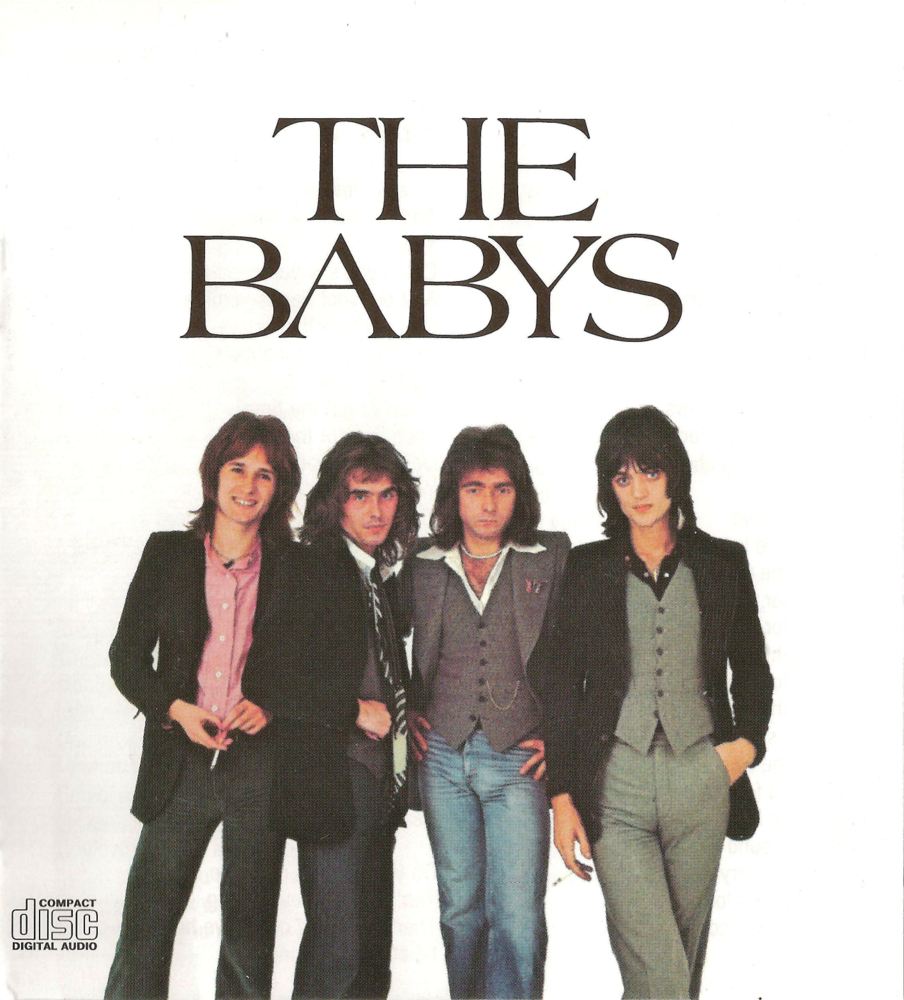
The Babys Font
Fonts in UseThe Babys were a British rock band that formed in 1975 and released their self-titled debut album in 1976 featuring a mix of rock and pop songs, including the hit single "Isn't It Time".
The album cover displays the use of the Americana font, a flared serif typeface created by Richard Isbell and published by American Type Founders in 1965.